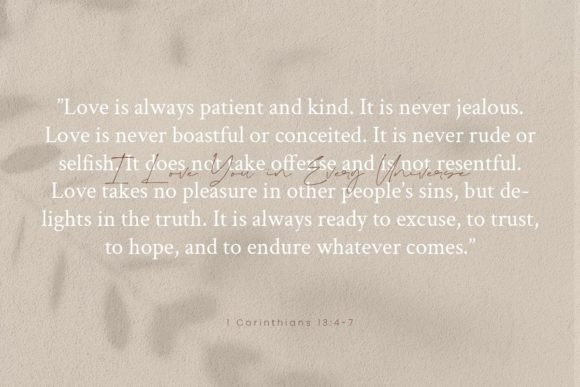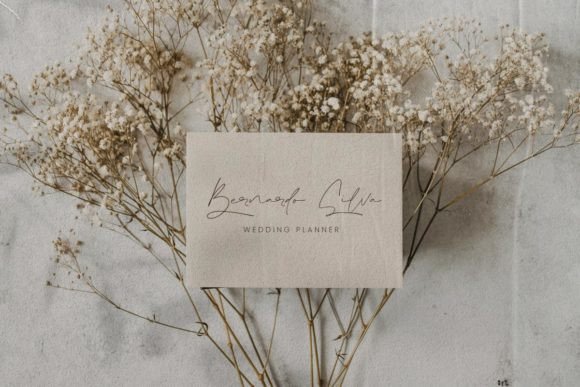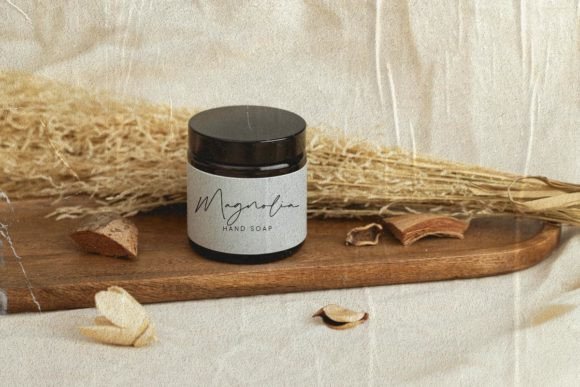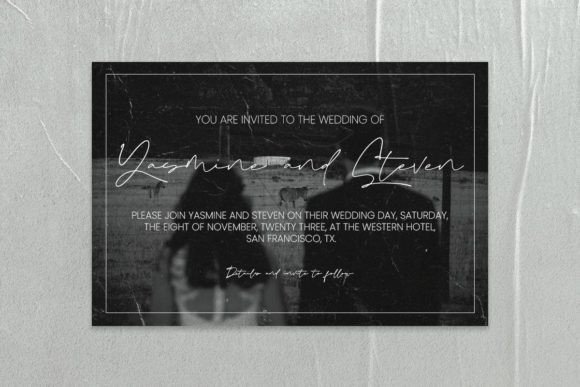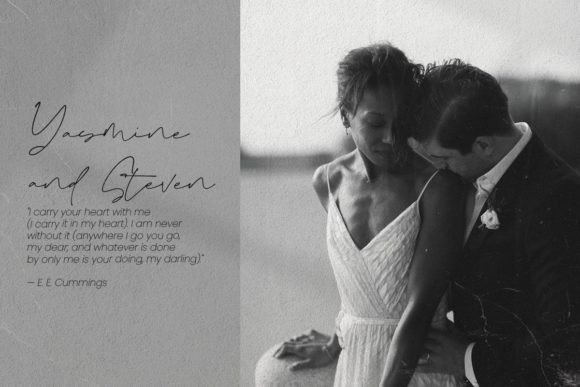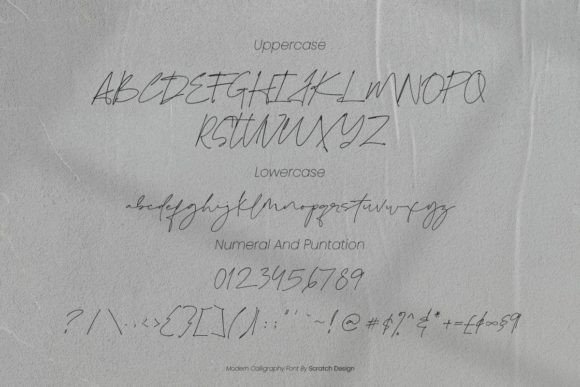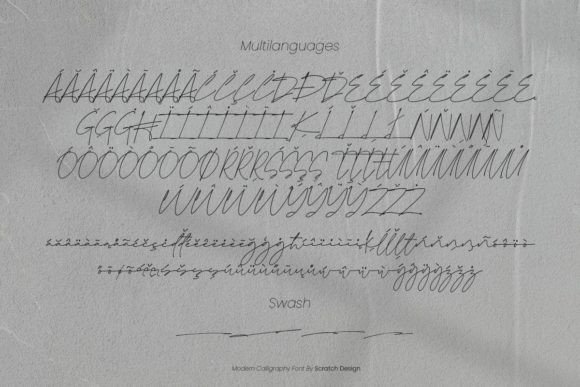
About Sentcita Font
Sentcita Font Download introduces a dazzling and detailed script typeface that adds elegance and flair to any creative project. Designed with precision and artistic care, Sentcita captures the perfect balance between sophistication and charm. Whether you’re working on branding, invitations, packaging, or decorative headlines, this font enhances your work with visual richness.
Its refined strokes and intricate curves make Sentcita stand out in any setting. With its stylish flair and modern calligraphy-inspired form, this font brings personality and beauty to every letter it touches.
Elegance in Every Detail
What sets Sentcita apart is its attention to detail. Every curve, tail, and ligature has been carefully designed to mimic the flow of hand-drawn script, giving your designs a handcrafted yet professional look. This makes the font a valuable asset for:
Wedding invitations and stationery
High-end logos and branding
Product packaging and labels
Greeting cards and personal notes
Fashion, beauty, and lifestyle content
Whether you’re crafting a romantic message or a luxury brand identity, Sentcita delivers elegance and impact with ease.
This font also supports OpenType features, offering access to stylistic alternates, ligatures, and a complete character set. You’ll enjoy the creative freedom to personalize every word while maintaining a consistent and polished appearance.
Adds Instant Class to Any Design
If your design needs a touch of class, Sentcita is your go-to solution. Its graceful and flowing style makes it ideal for upscale branding and elegant product lines. At the same time, its versatility allows it to shine in casual settings like quotes, cards, and blog headers.
Thanks to its clear readability, Sentcita works well in both digital and print formats, even at smaller sizes. Pair it with a clean sans-serif font for contrast or use it as a statement script font that stands beautifully on its own.
If you’re looking for a script font that feels premium, handcrafted, and full of charm, this is it. Whether you’re designing for weddings, brands, social content, or packaging, Sentcita delivers unmatched style and polish.